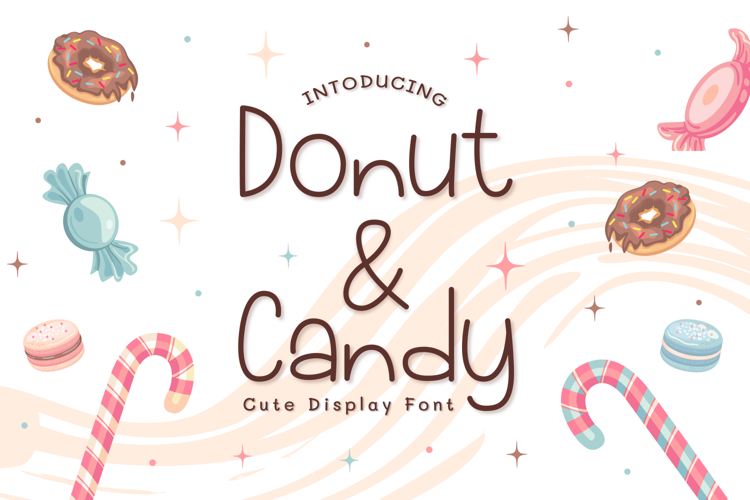
Donut & Candy Font
About Donut & Candy Font
Introducing Donut & Candy by Tlatoustype
A fancy and elegant handcrafted font that create to impress your audience and make your branding shine.
Make your projects dance with this elegant and wonderful font wherever you use it. Use it for your
headings, logos, ads, printed quotes, packaging, and even your website or social media branding.